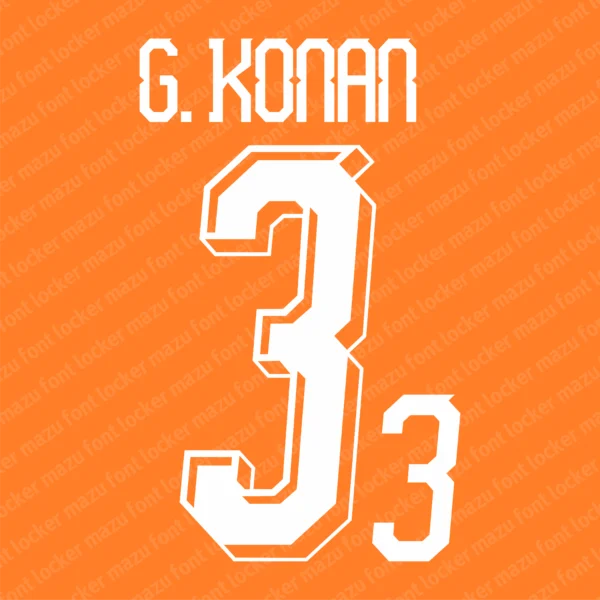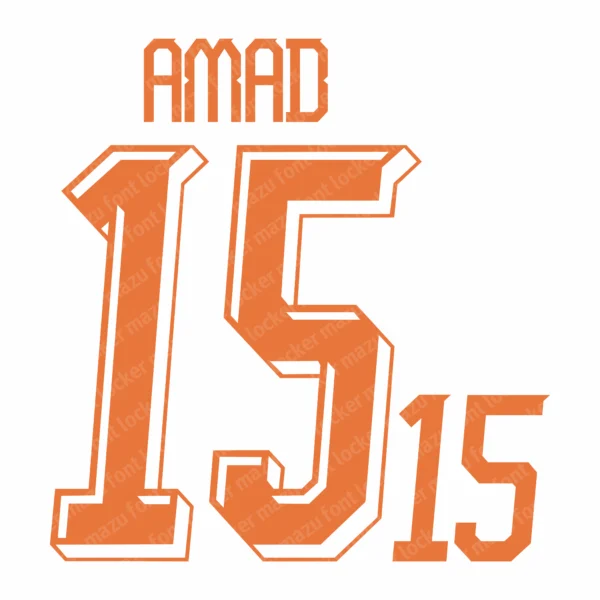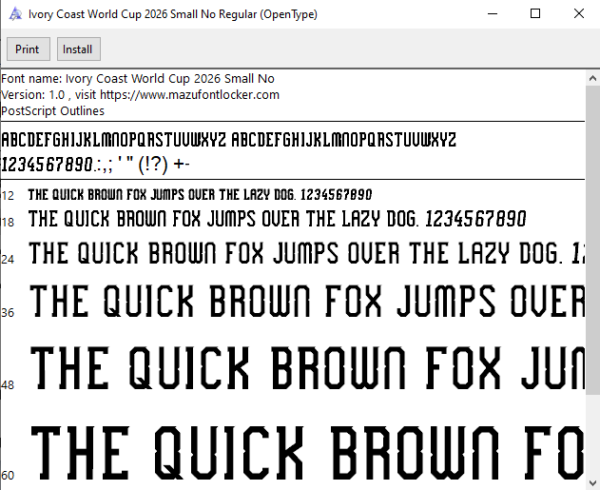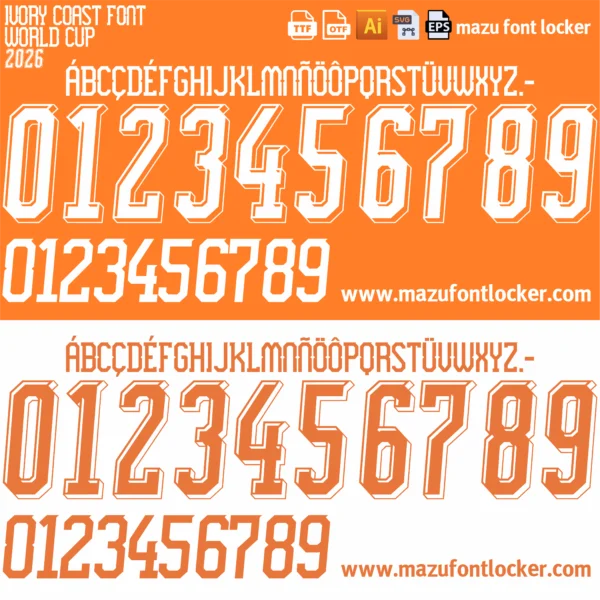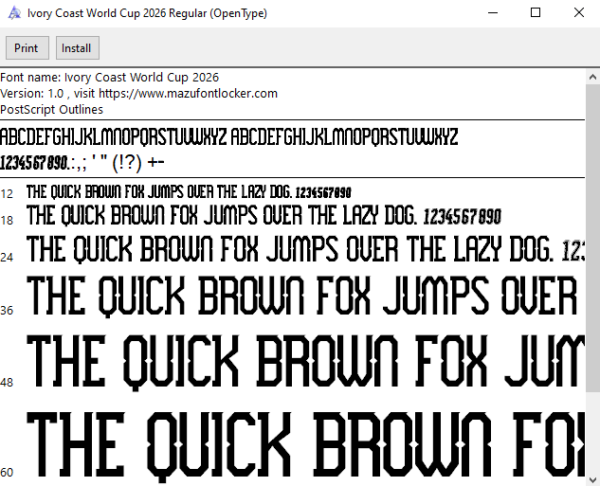
Ivory Coast World Cup 2026 Font Vector – Epic Elephants Masterpiece
Ivory Coast World Cup 2026 Font Vector – Authentic Elephants Typeface
The Ivory Coast World Cup 2026 Font Vector is a premium typeface that accurately recreates the bold, modern lettering style of the Ivory Coast national team for the 2026 FIFA World Cup. This high-quality vector font kit captures the vibrant and confident typography that represents the pride of the Elephants (Les Éléphants).
Why Choose Ivory Coast World Cup 2026 Font Vector
This font stands out because of its sharp vector details and strong national identity. Every letter and number is crafted to match the powerful, clean typography expected on the Elephants’ 2026 World Cup kits. Whether you are making realistic kit templates or exciting football content, this font gives your designs that authentic Ivorian look.
The letterforms are tall, bold, and highly readable with strong, clean strokes. The design combines modern sharpness with the dynamic energy that represents Ivory Coast football.
The numerals feature bold curves and firm edges, delivering excellent visibility and a premium appearance on player jerseys for both print and digital formats.
• Full uppercase A–Z and numbers 0–9 in authentic Ivory Coast 2026 style
• Special Elephants crest glyph for accurate shirt number detailing
The Ivory Coast World Cup 2026 Font Vector is an independently designed typeface package. It is carefully crafted to replicate the official shirt lettering style inspired by Ivory Coast’s 2026 World Cup campaign. This font kit is perfect for creative projects, fan edits, nostalgic jersey designs, and custom football graphics.